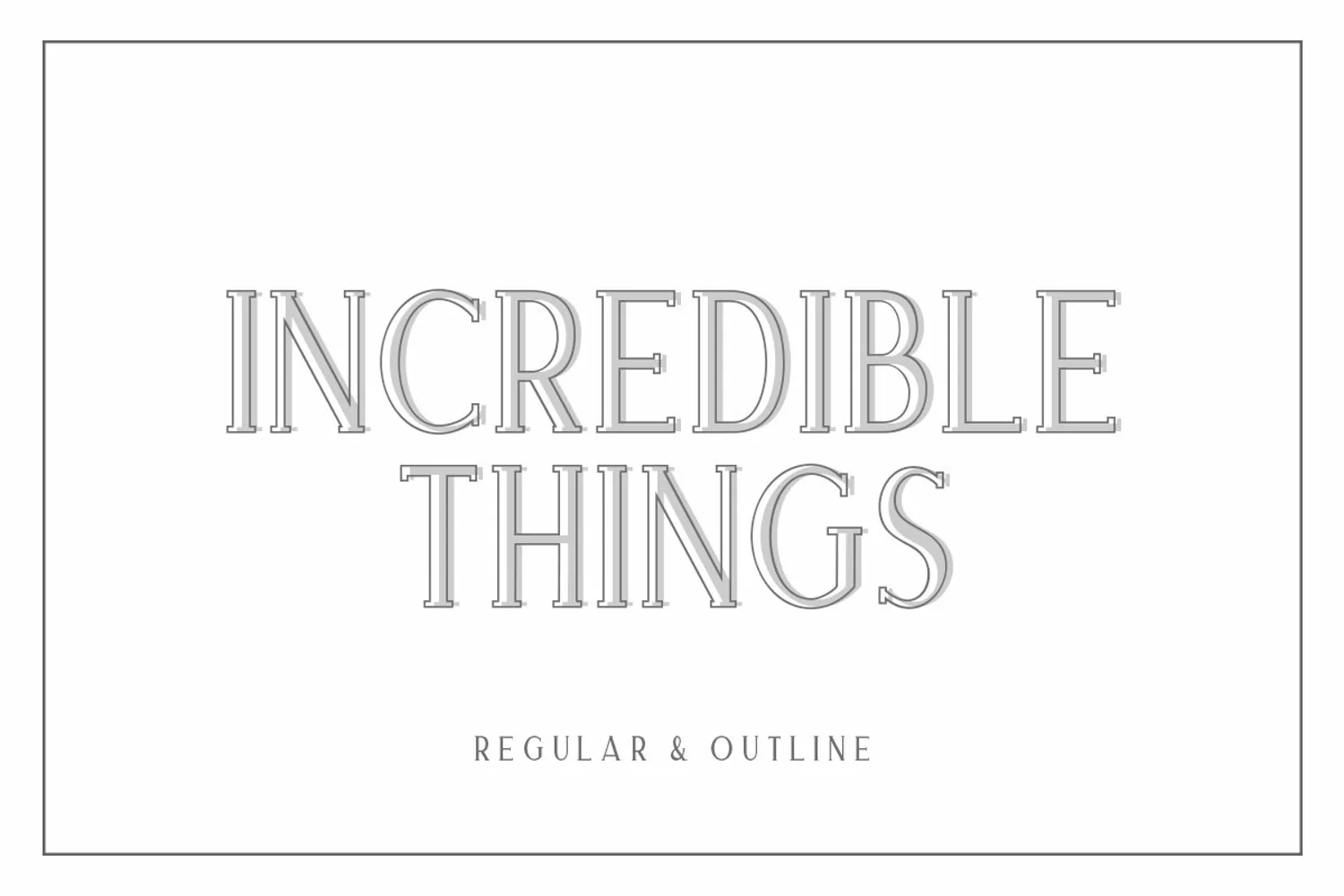
Merova is a classic and elegant serif with many style. Merova contains a bunch of alternates for each characters that will make your presentation or logo even more stunning and stand out! Merova also support Multi Language. and already PUA Encoded!